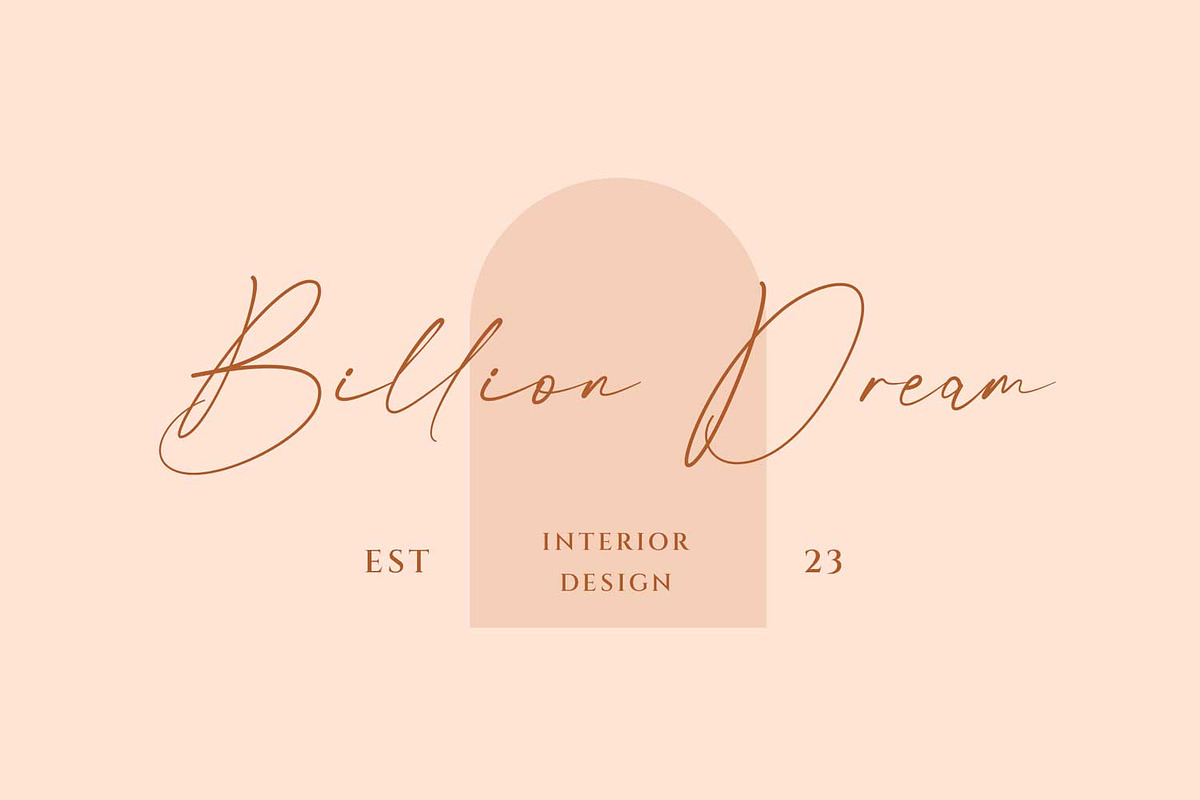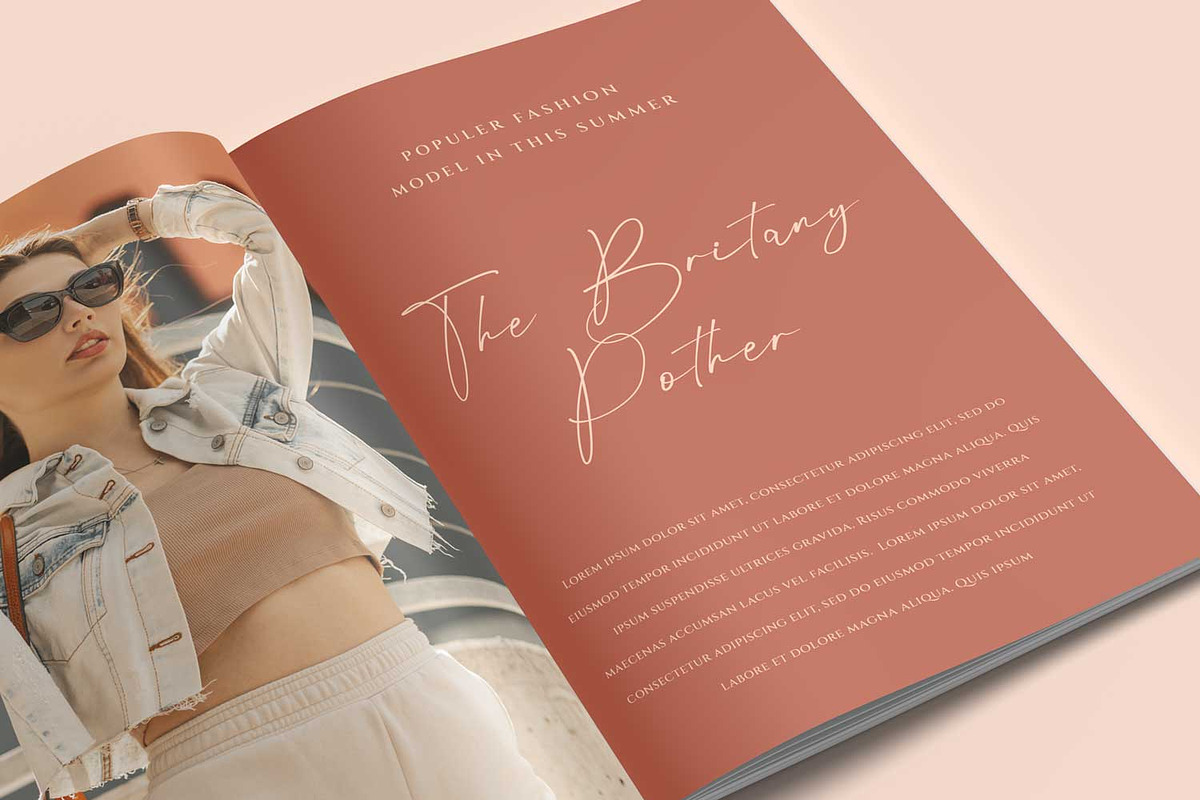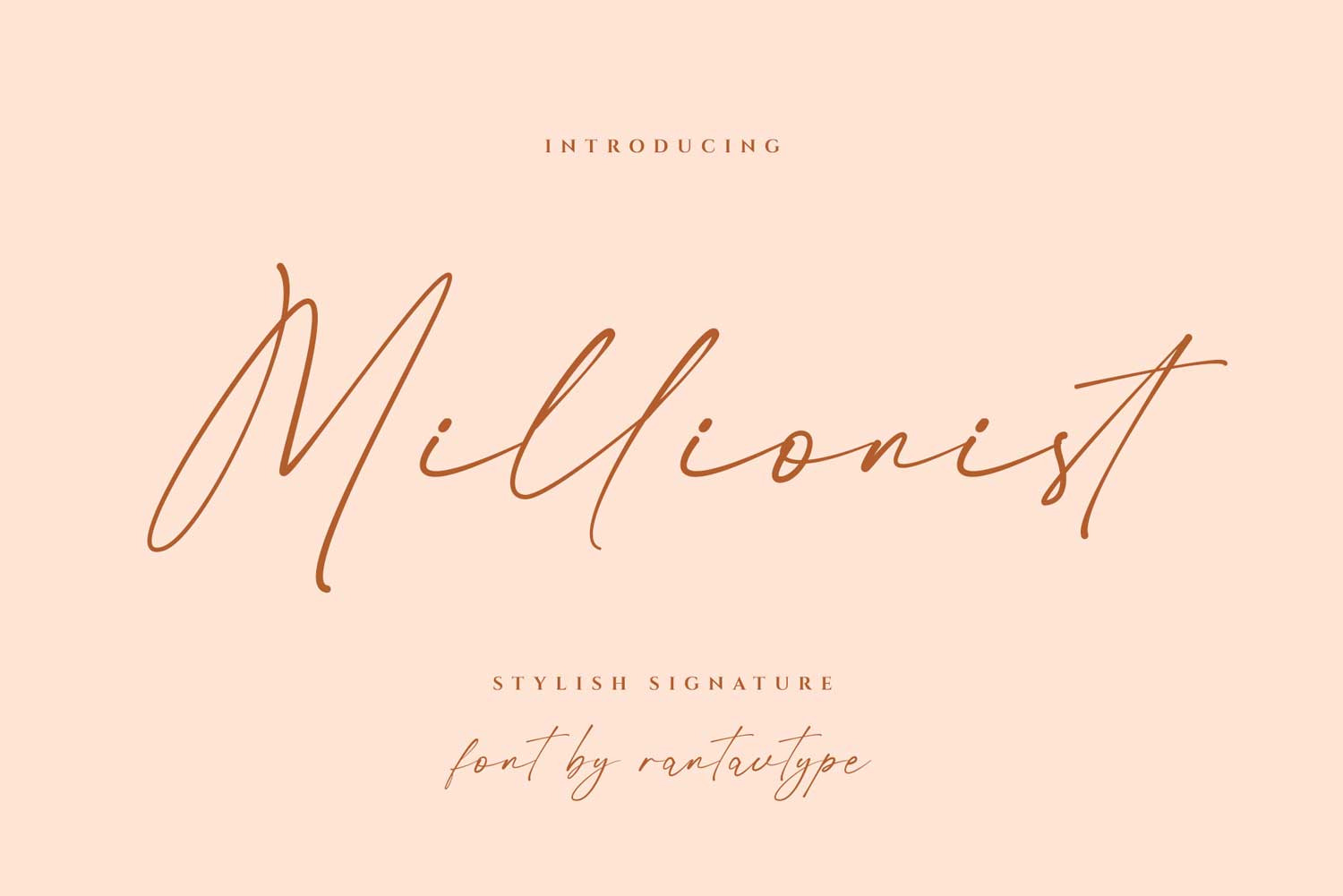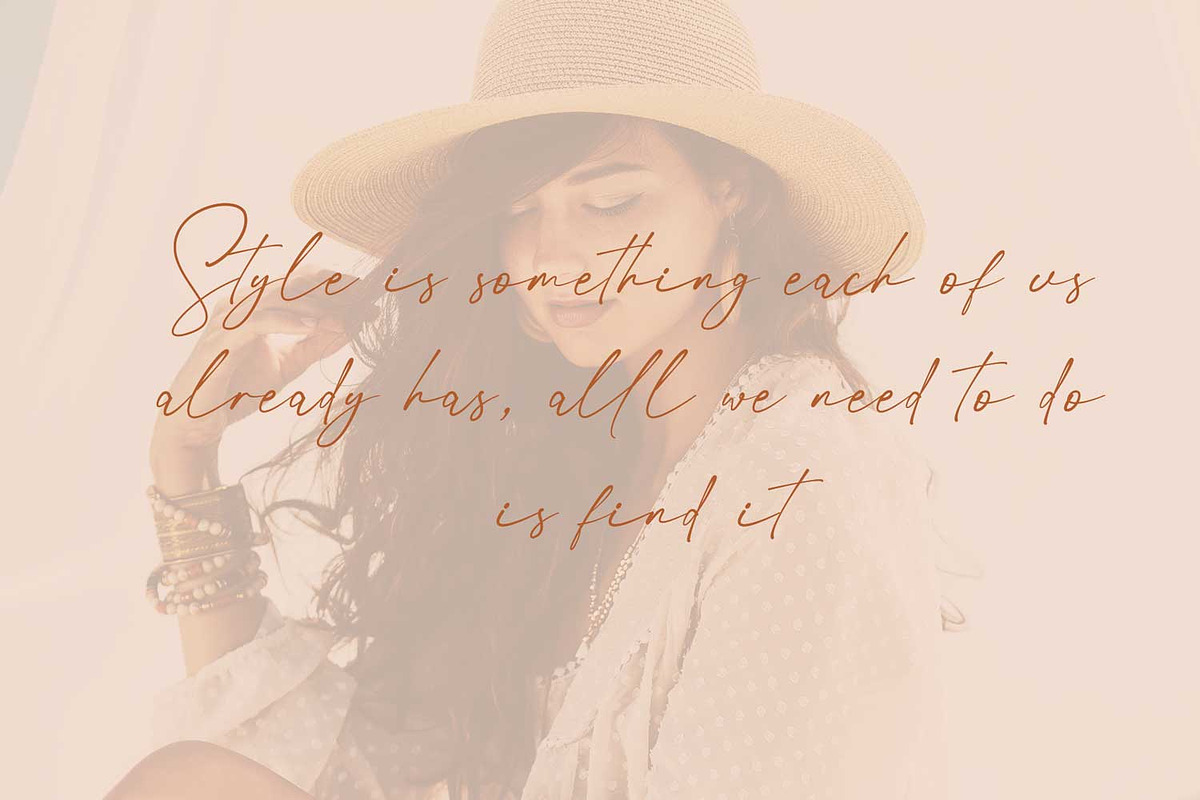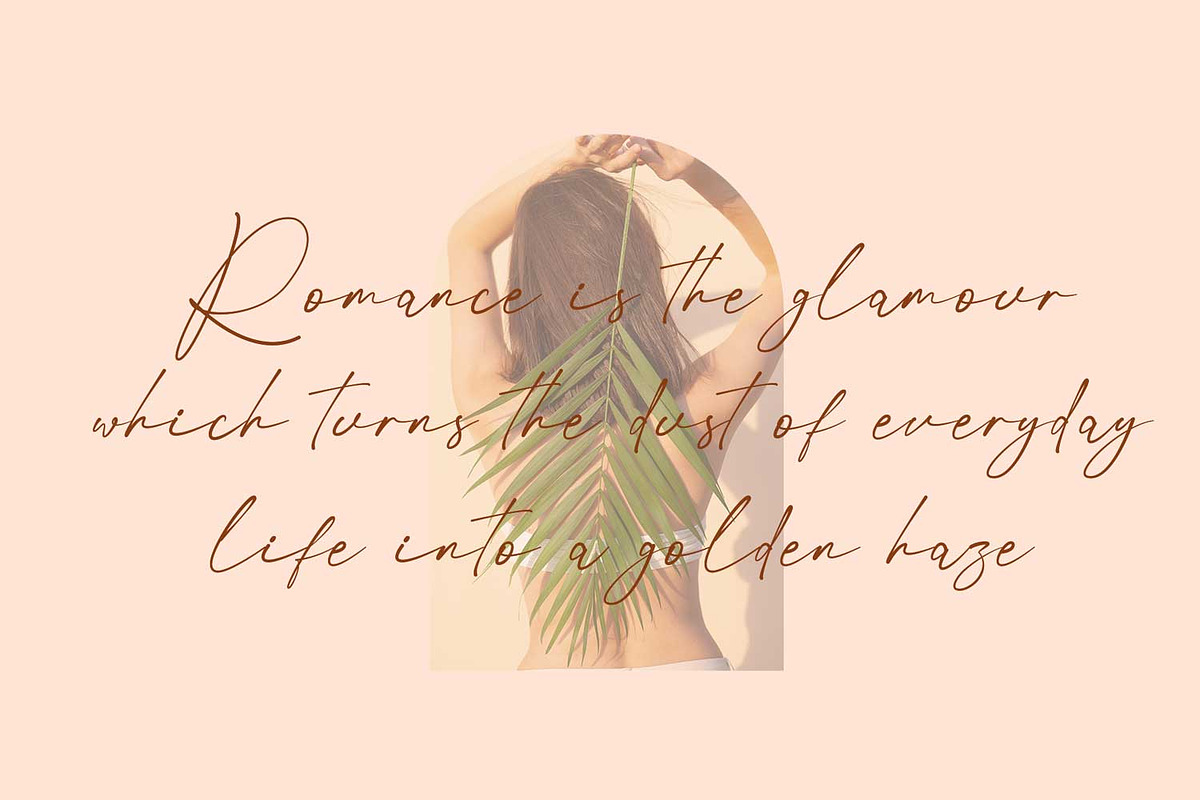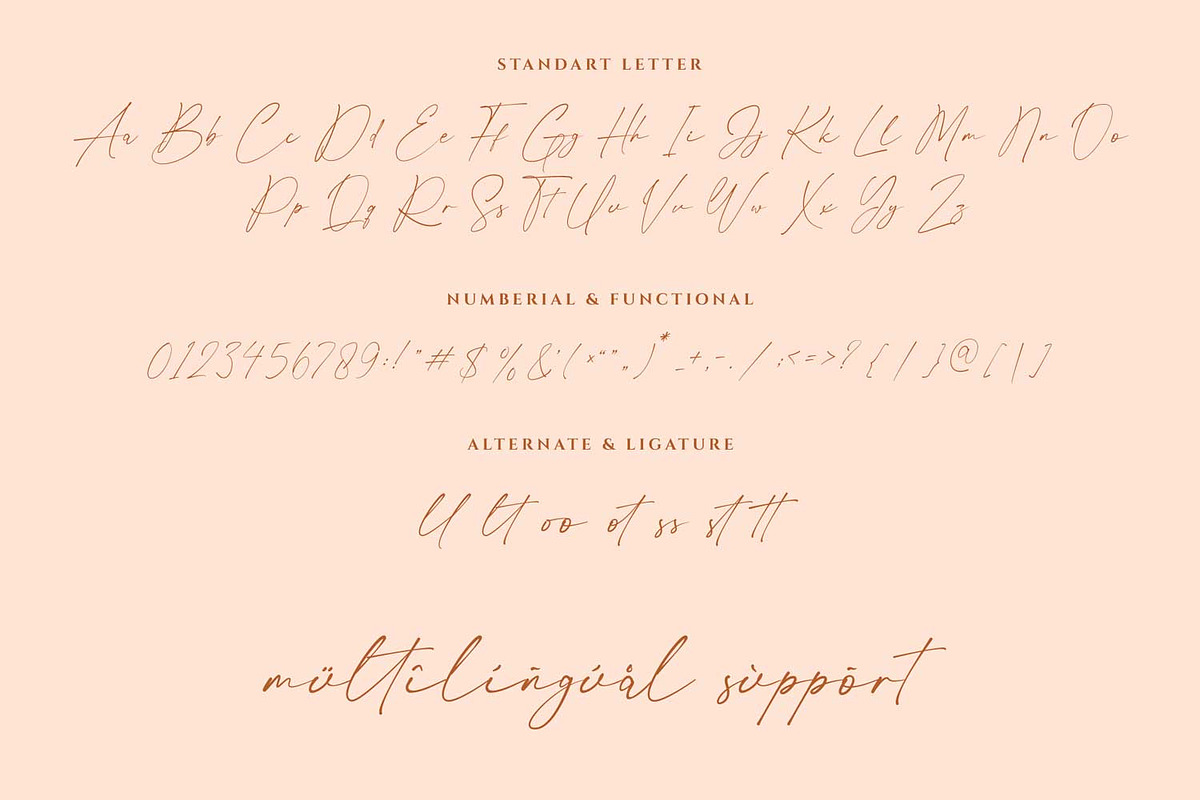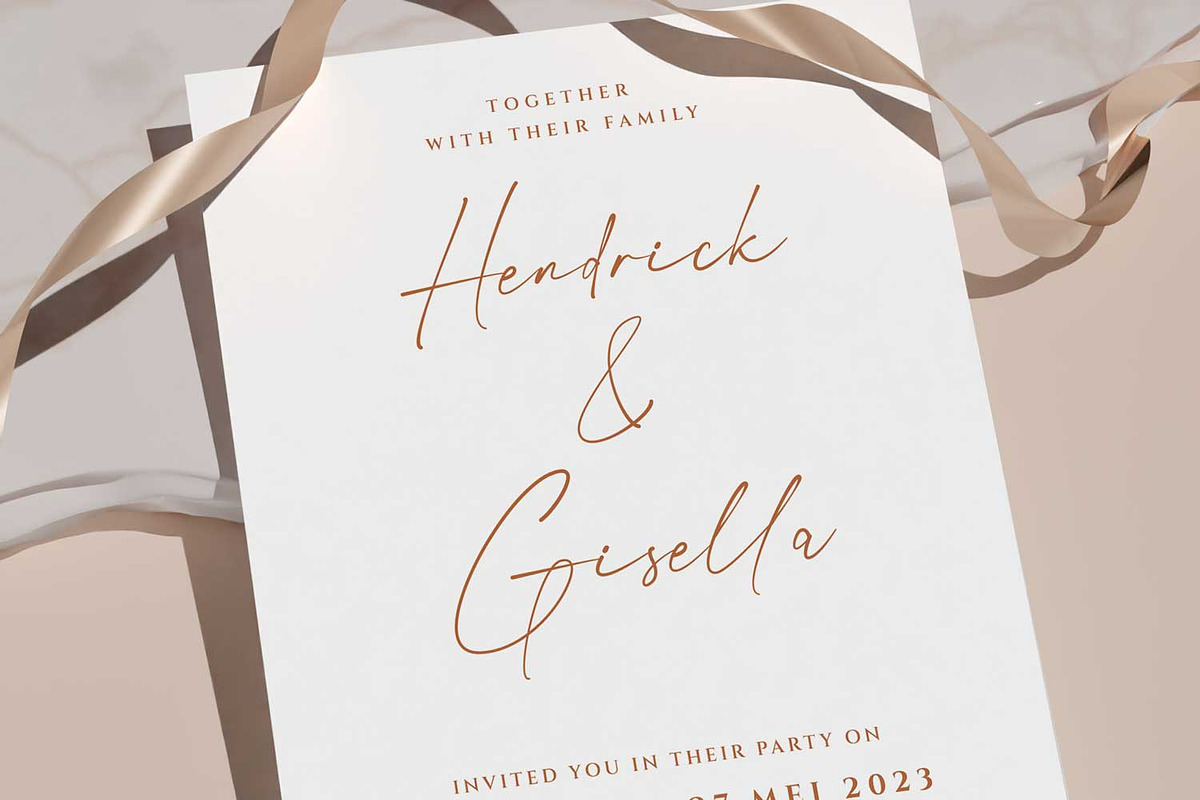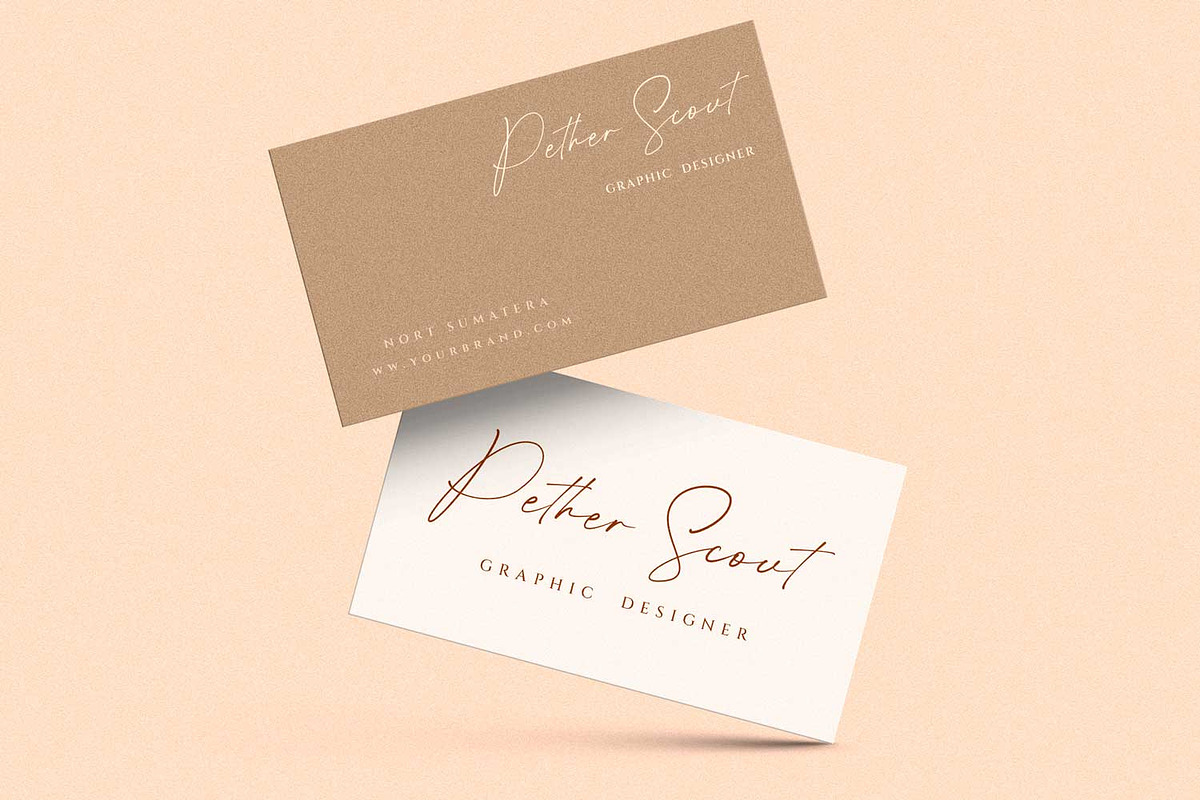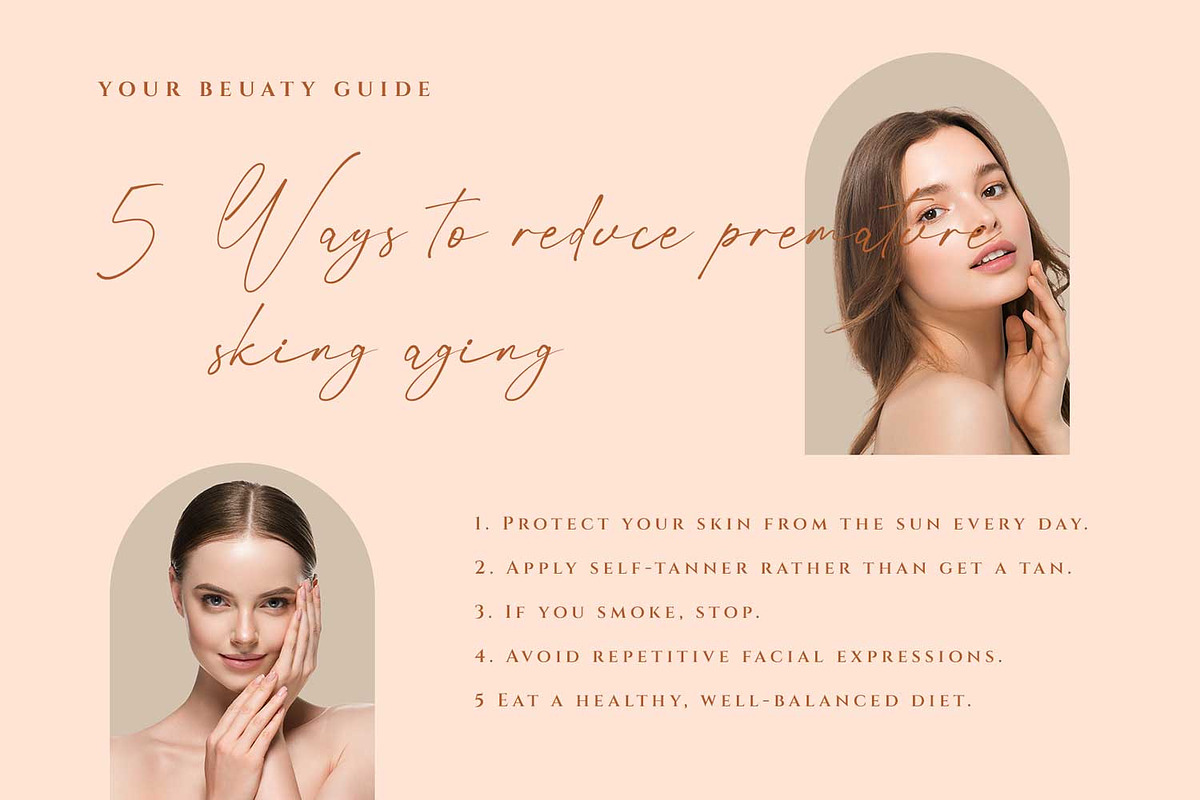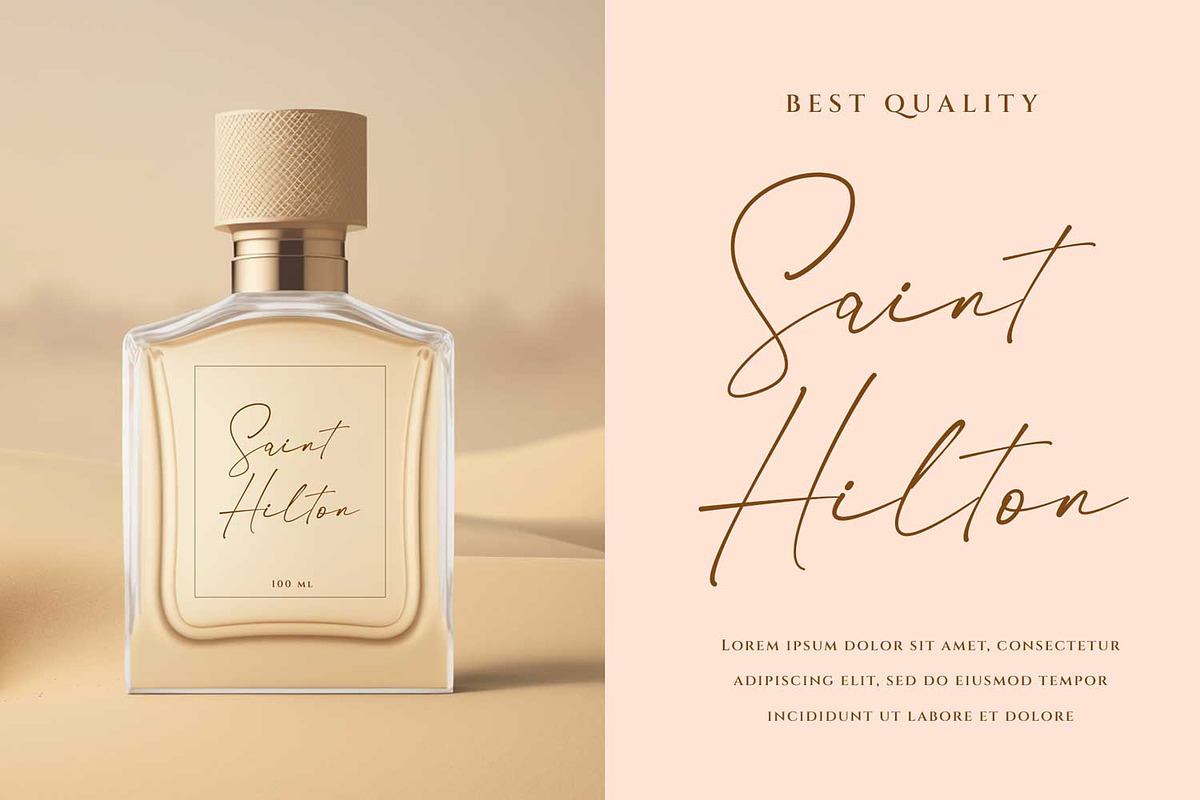
Millionist - Elegant Signature Font
Hi Ladies and Gentleman ! Proudly present another signature font Millionist. This font is elegant style which can be interpreted professional. we keep this font looks elegant, luxury, premium, modern, readable, stylish, feminine, girly, catchy and easy to use.
Millionist is the great choice for watermark on photography, signature or signature logo design, quotes, album cover, magazine, business card and many other design project. Millionist here to make your work to high level!!!
- Standar character A-Z and a-z
- ligature
- Multilinggual support